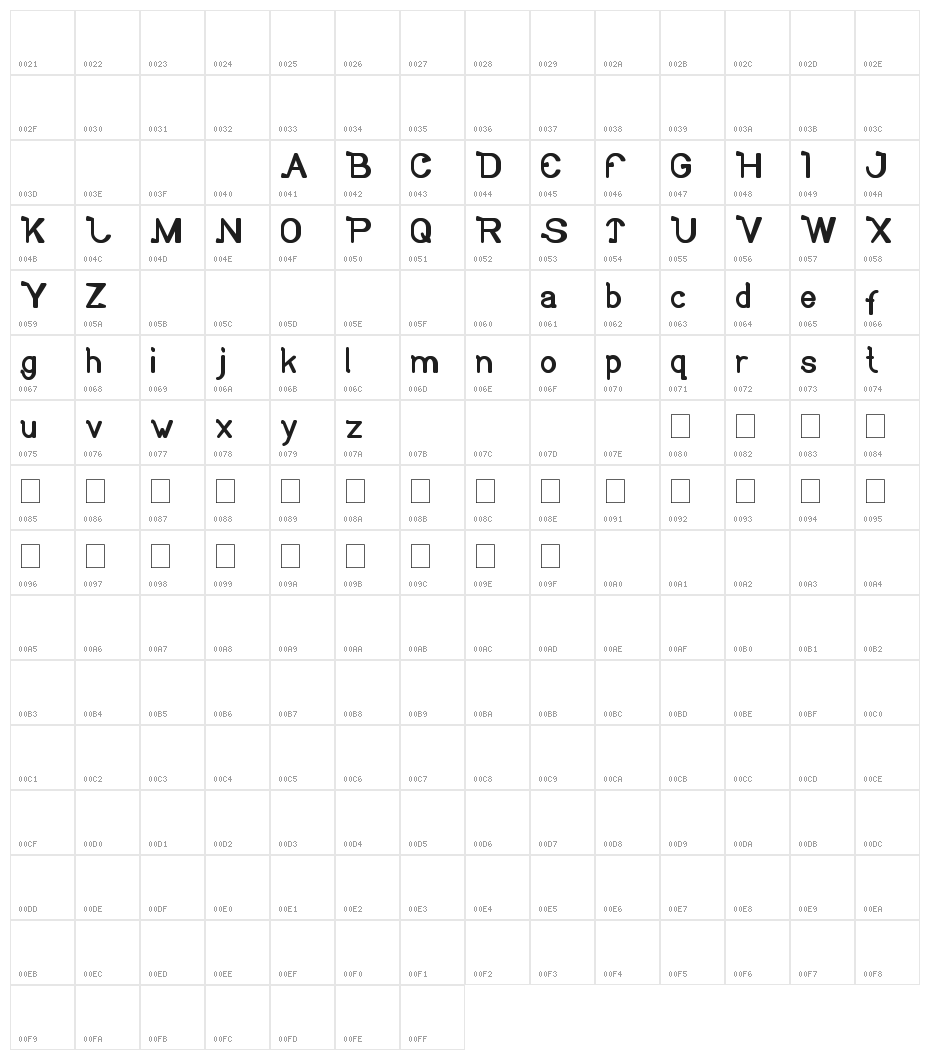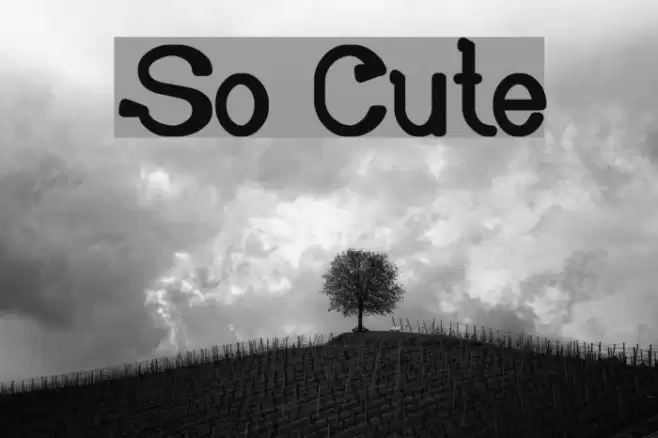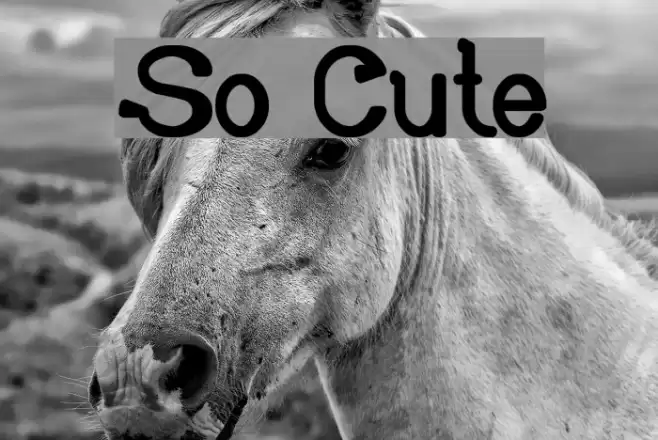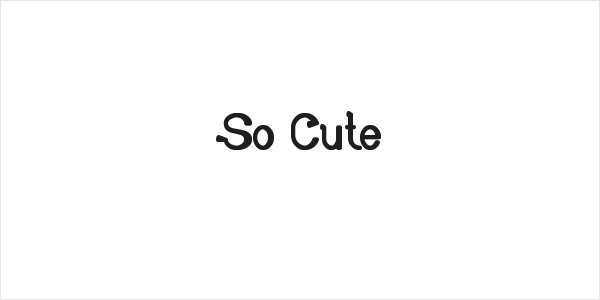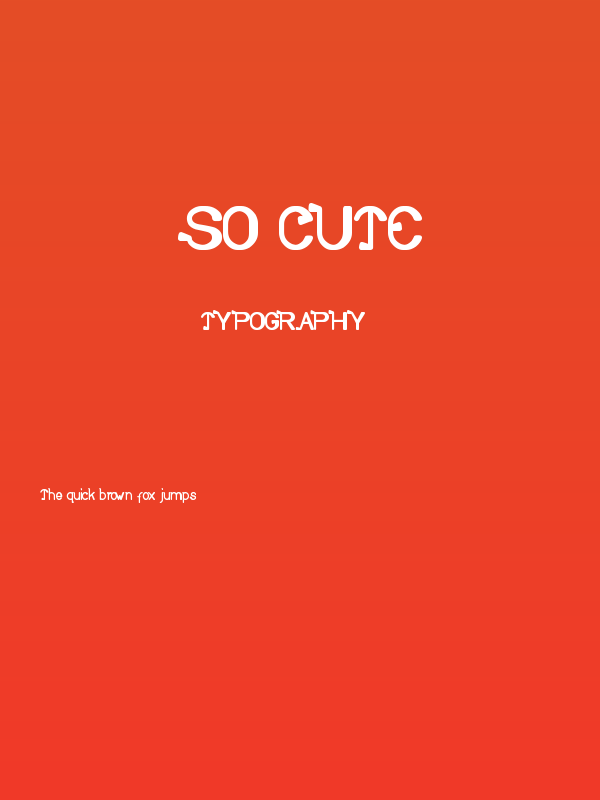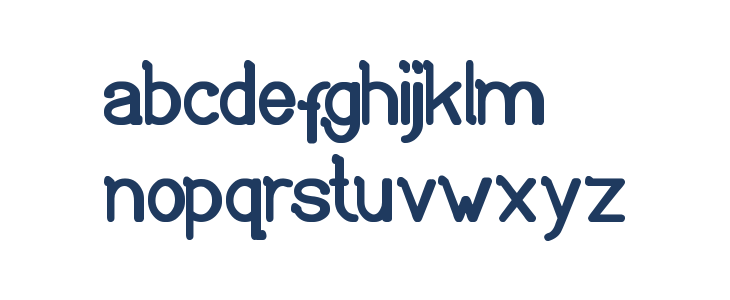
So Cute Font
So Cute Description
This playful and whimsical font features rounded edges and a bold presence, creating a friendly and approachable aesthetic. The characters are evenly spaced with a consistent stroke width, giving it a uniform appearance. The uppercase letters have a unique charm with slightly exaggerated curves, while the lowercase letters maintain a consistent style that complements the overall design. The font's playful nature makes it ideal for children's books, playful branding, and creative projects. Its boldness ensures readability while maintaining a fun and engaging look.
| Proposed Projects | Ideal for children's books, playful branding, creative projects, and invitations. |